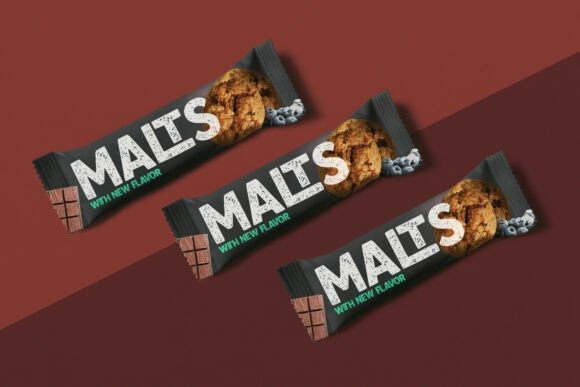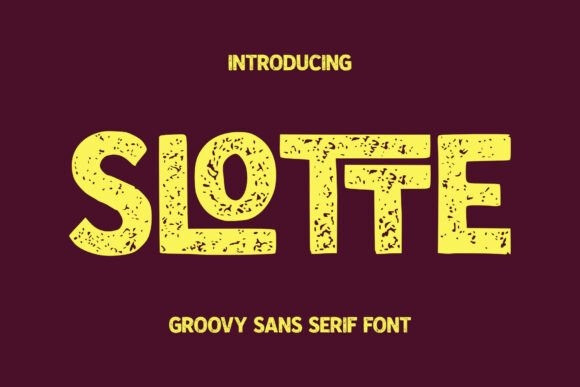
Slotte Display Font
Slotte Display Font is a groovy typeface with a bold textured style that brings your designs to life. Its chunky weight ensures maximum impact for headlines, posters, and packaging, while the subtle texture adds a handcrafted, retro-inspired charm. Rounded edges give it a friendly, approachable feel, balancing strength with playfulness. Combining groovy vintage vibes with modern readability, Slotte is perfect for projects that demand both style and character.